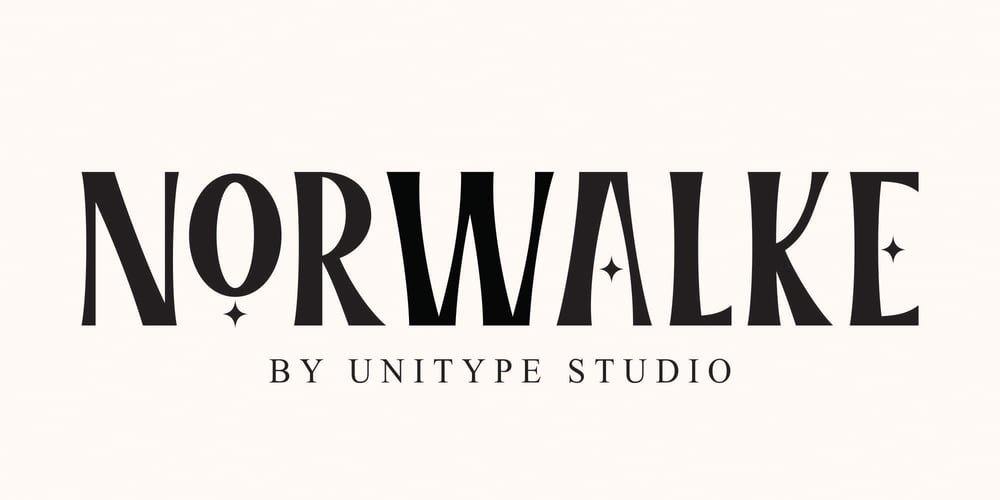
NORWALKE Font Family was designed by Faizul Muna and published by Unitype Studio. NORWALKE contains 1 styles and family package options. Introducing NORWALK – Modern Serif Font. Our latest digital modern serif font – a sleek and sophisticated typeface perfect for any creative project. With clean lines and elegant curves, this font is sure to make your designs stand out. Get your hands on it today and elevate your designs to the next level!Ready to take your design game to the next level?Whether you’re creating a logo, website, or printed materials, this font is the perfect choice for adding a touch of class and sophistication.